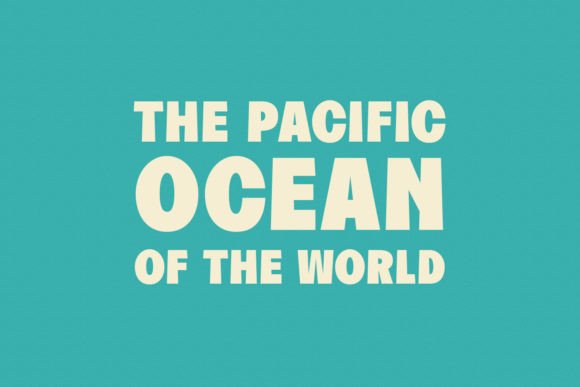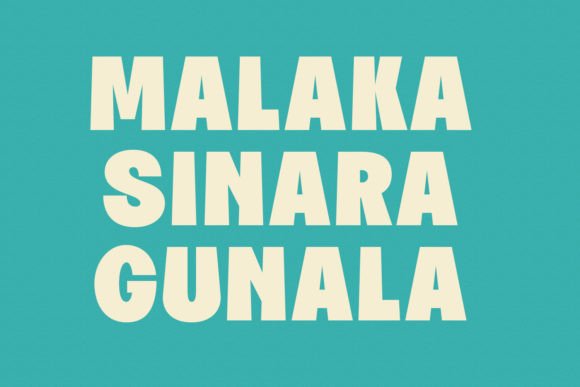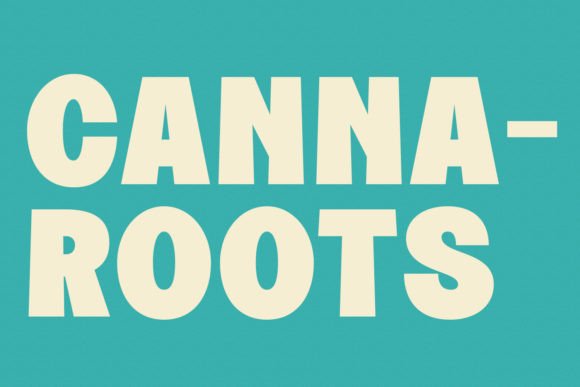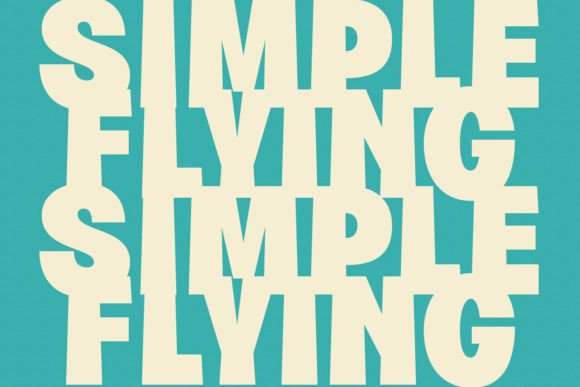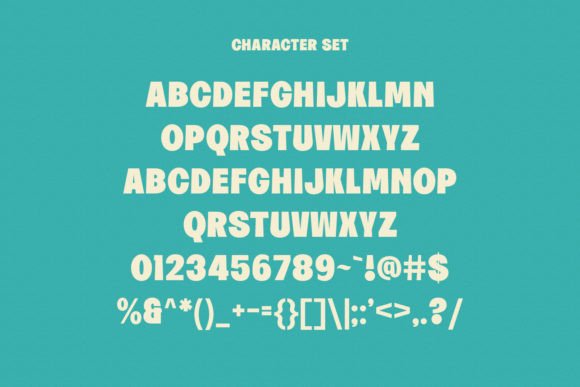
Introduction to Nutre Font
Nutre is a bold, all caps display font featuring the perfect amount of trendiness.
Whether youโre using it for crafting, digital designing, presentations or greeting cards making, itโs perfect .
Key Features of Nutre Font
Nutre Font offers exceptional quality and versatility, making it a valuable addition to your design toolkit. Whether you’re creating for personal projects or commercial use, Nutre Font delivers professional results.